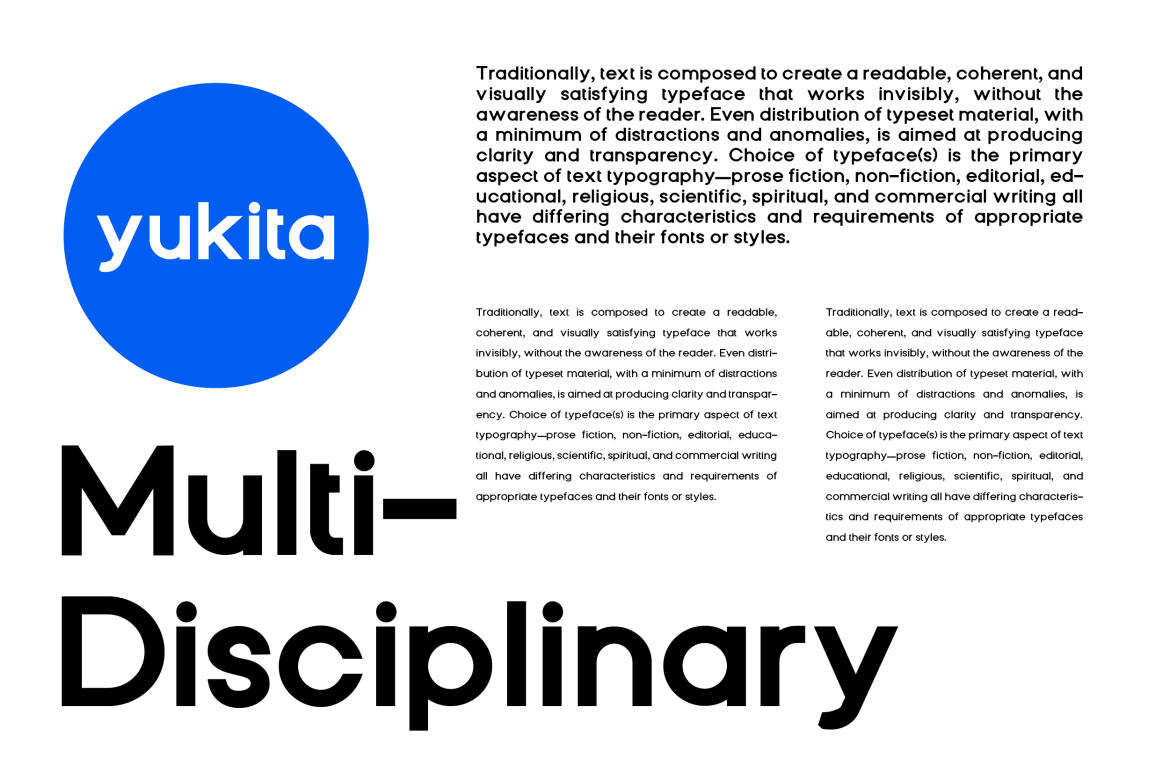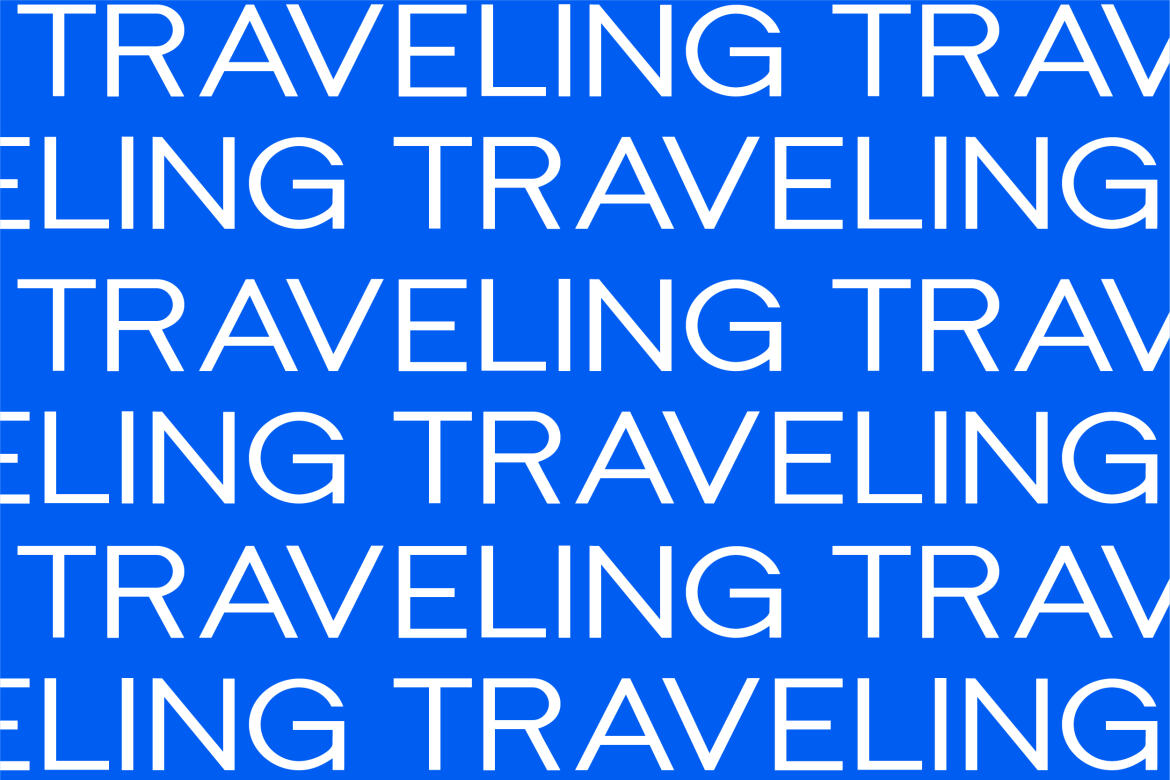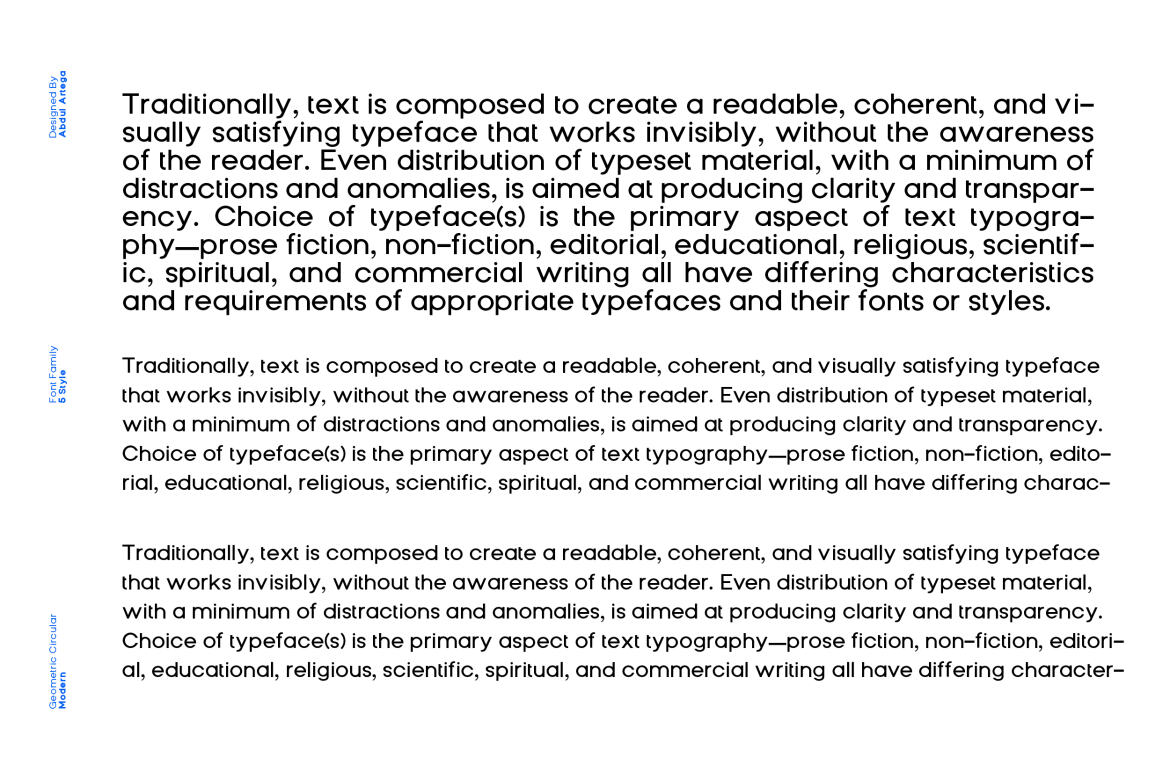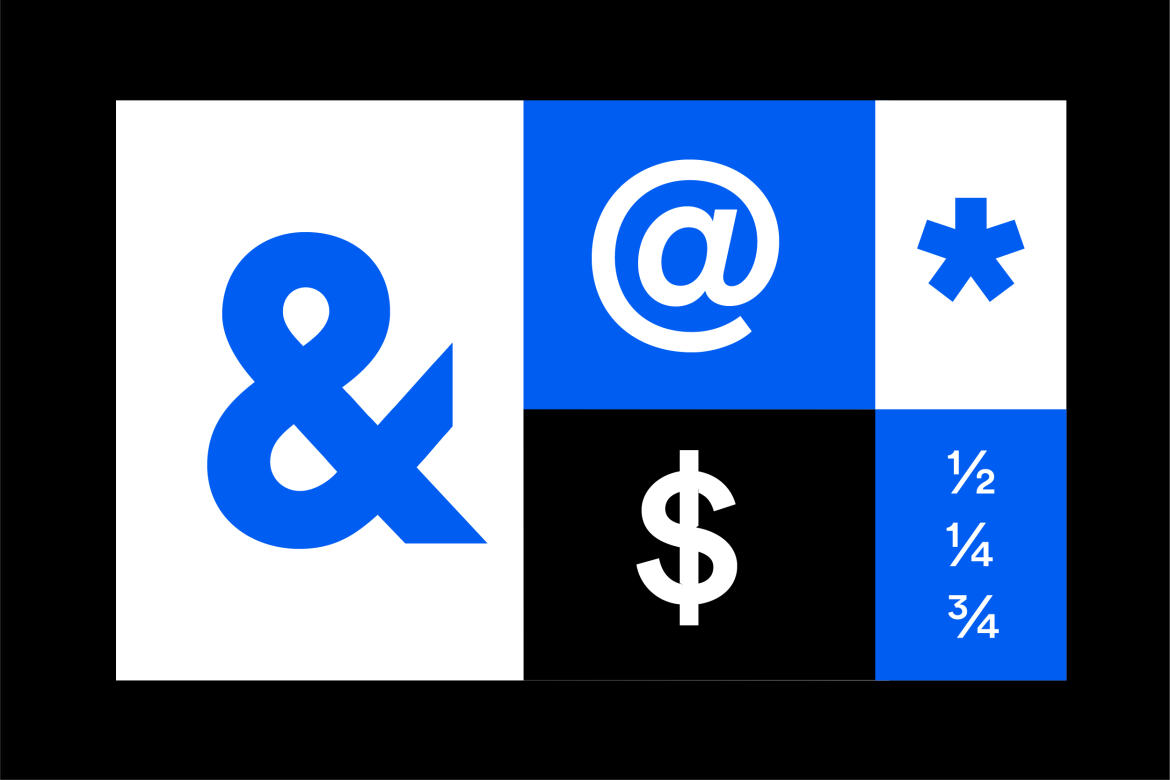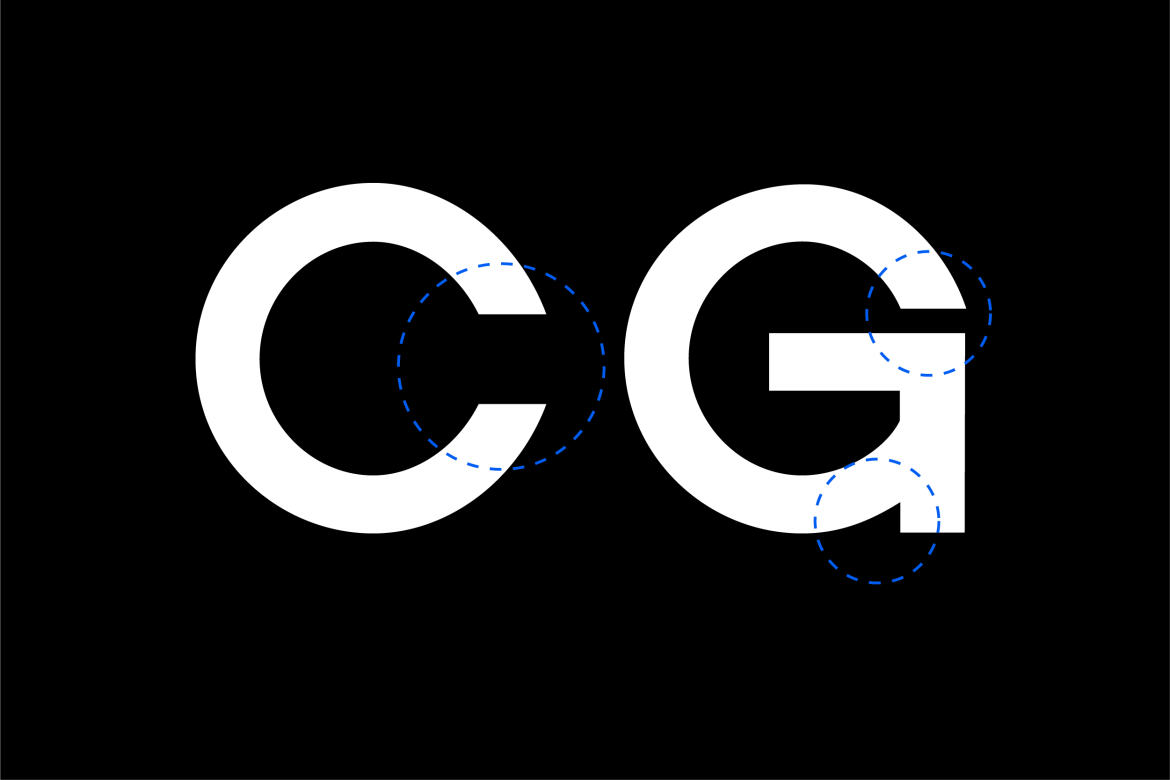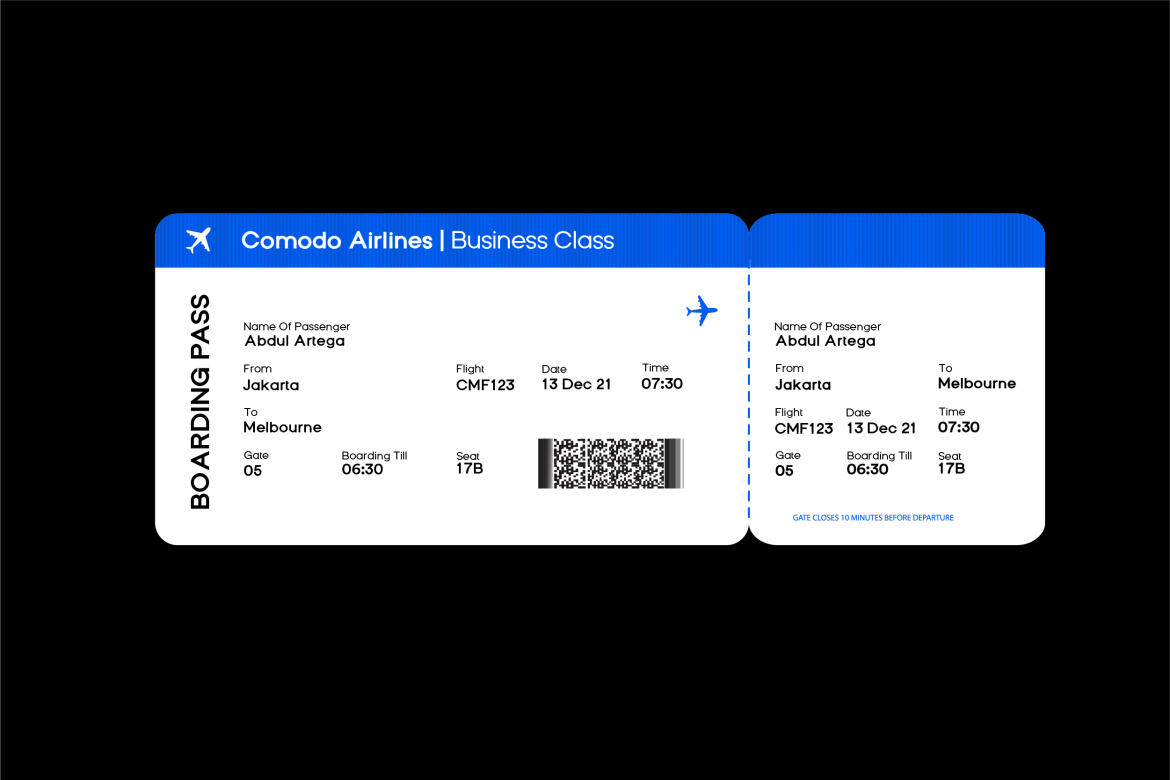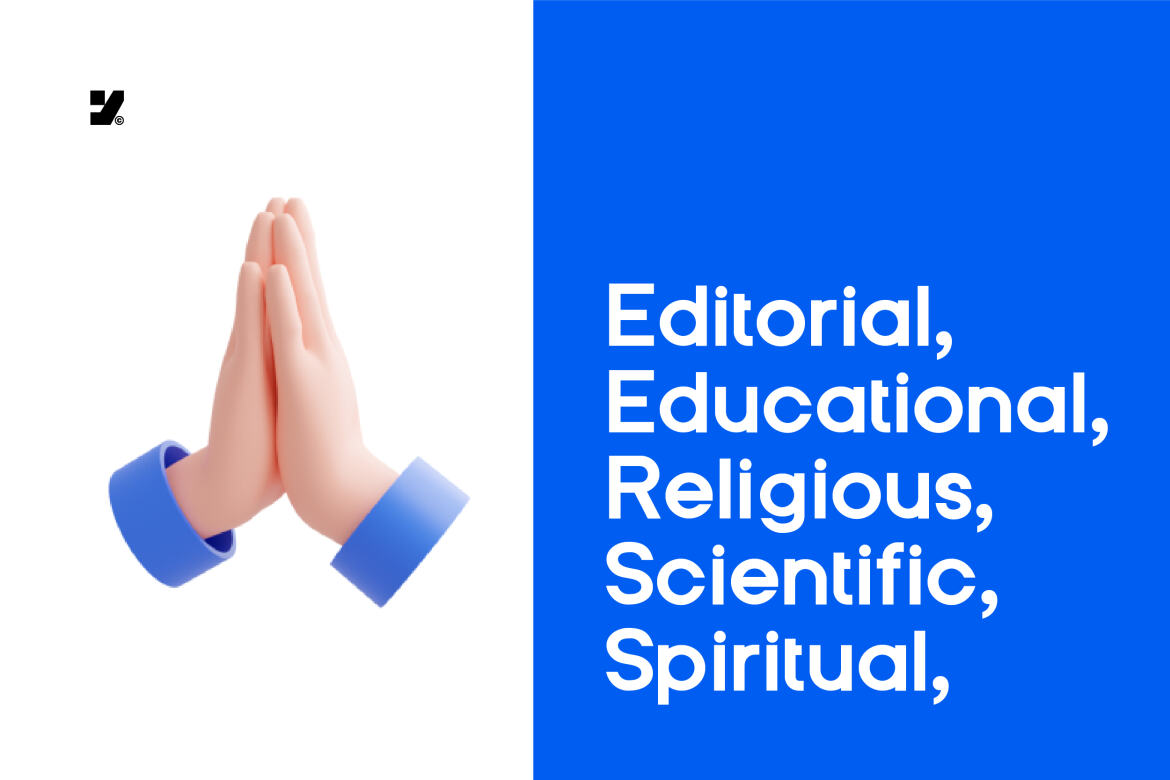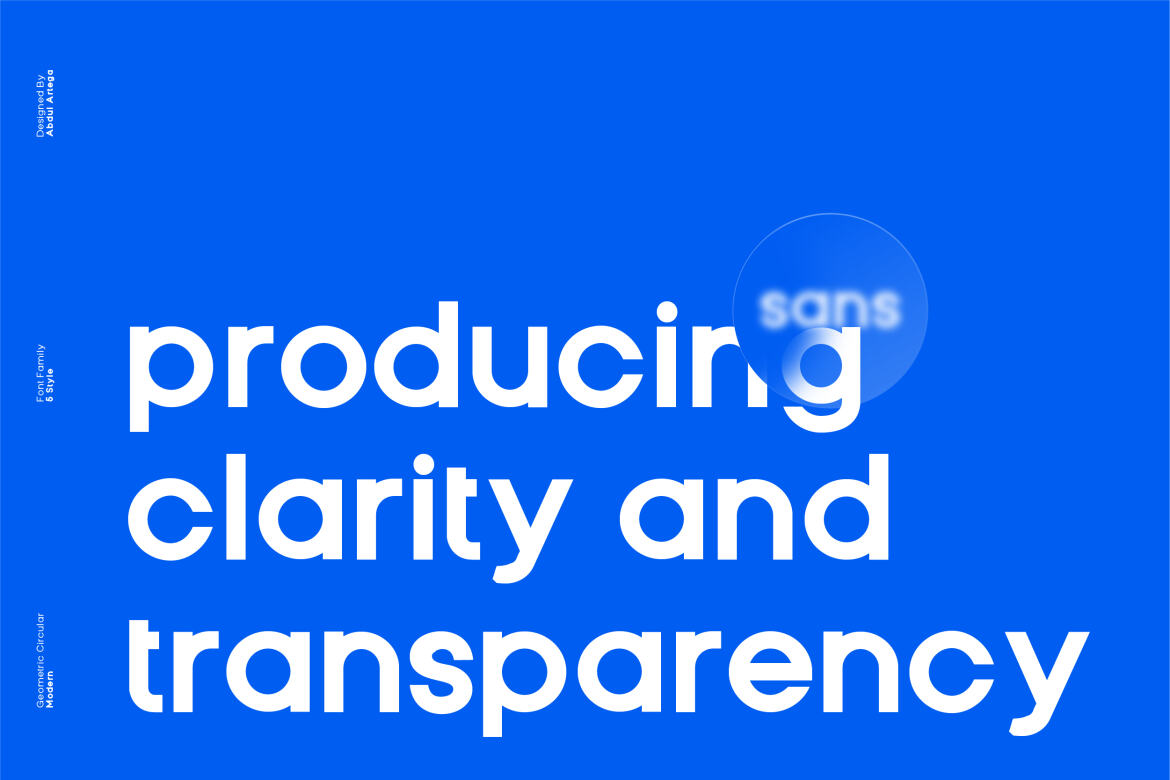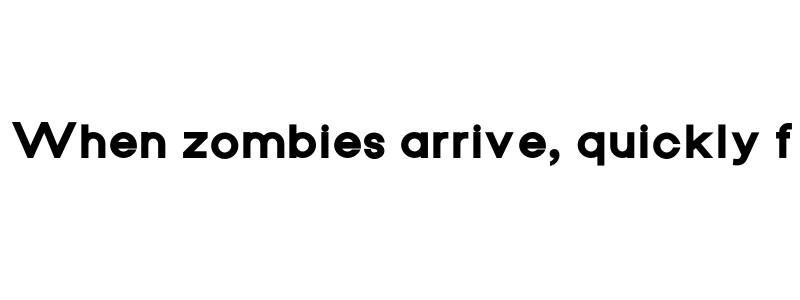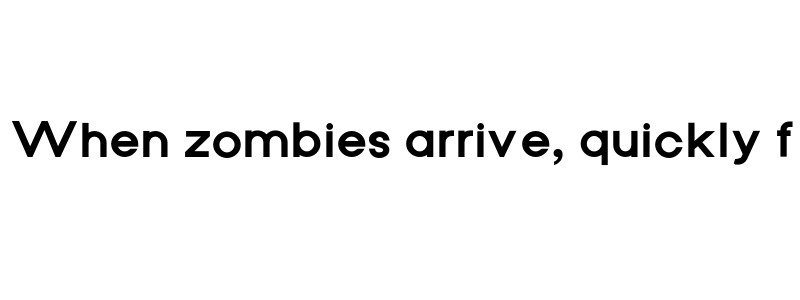
Yukita Sans FREE Font
Yukita is a geometric sans serif font family that maintains consistency in the design of each letterform. The sharpness and logic of each shape allow for balance to be maintained in every form, resulting in a clean and perfect shape.